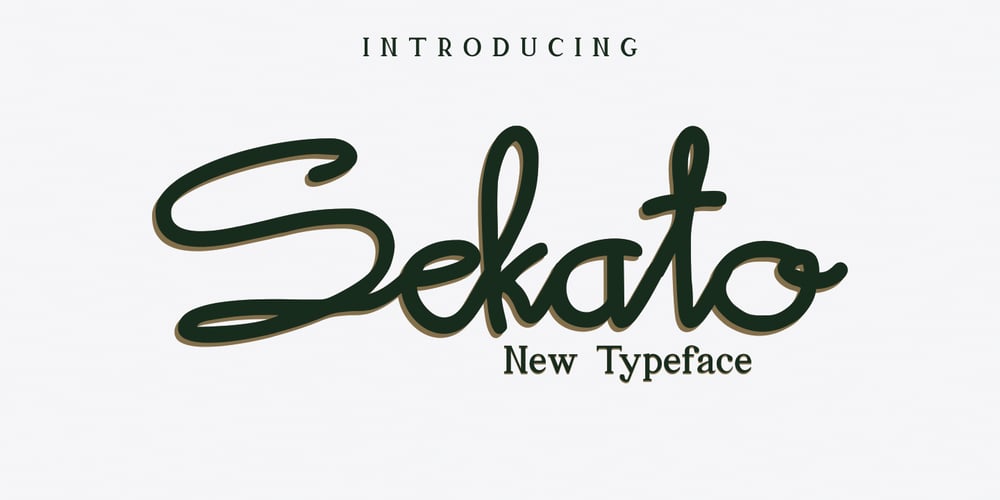
Sekato Font Family was designed by Amrullah Medan, Amrullah and published by Suamzu Art. Sekato contains 1 styles and family package options. The Sekato Monoline font is a monoline script font inspired by retro scripts. The Sekato Monoline font comes with the Variable Font format available so it is easy to use to select the desired weight for the design. And supported opentype features that make it more natural and attractive for the needs of designers. Made with care and this font is suitable for digital letters, logos, t-shirts, prints, business cards, branding materials, quotes, nature photography, etc.